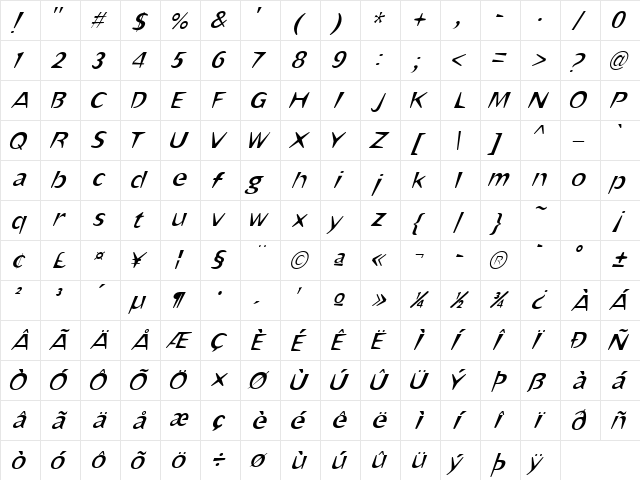
OmahaThin Italic Regular
Design Context for OmahaThin Italic Typeface
OmahaThin Italic is a composed and adaptable typeface that performs quietly and consistently across a wide range of design contexts. The slanted form adds forward momentum and visual energy. The delicate stroke weight brings airiness and refinement to layouts.
Pro Tip: Try OmahaThin Italic for annotation and caption copy alongside an upright companion — the contrast in angle creates a dynamic but ordered typographic system.